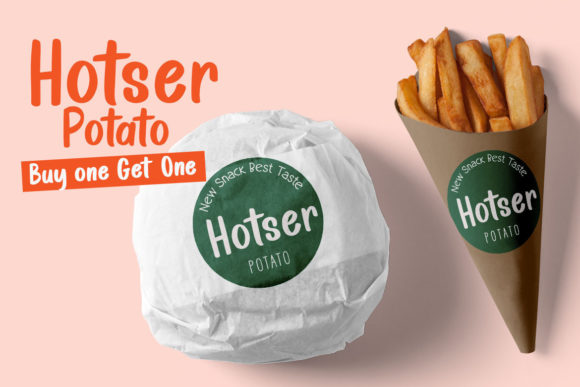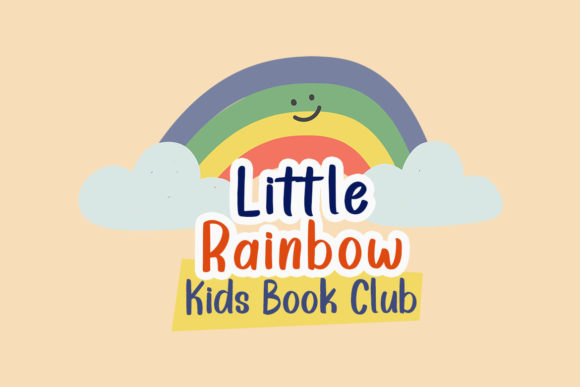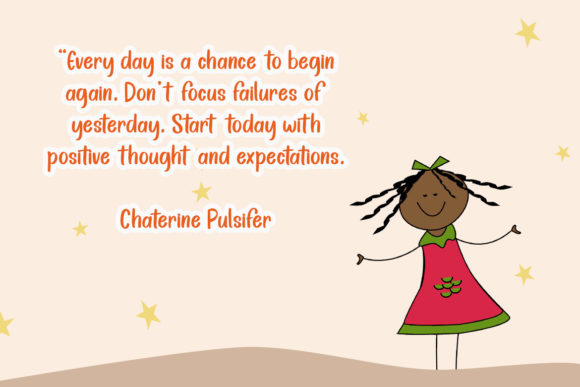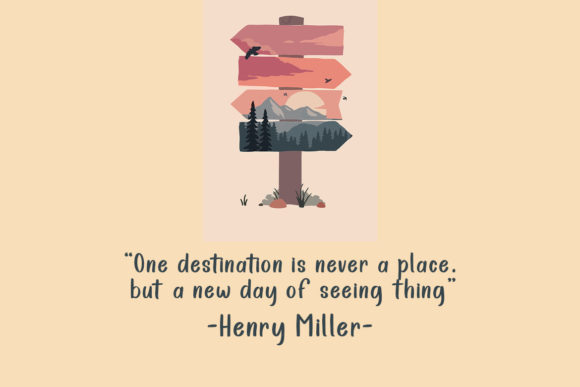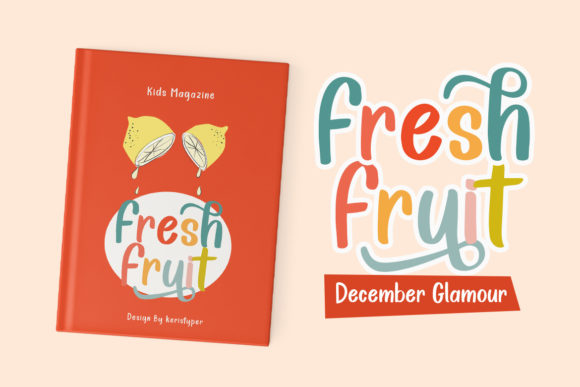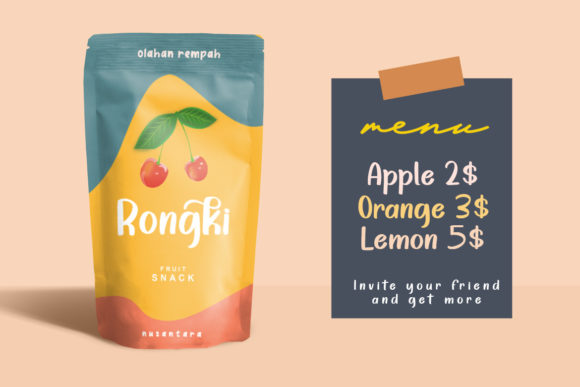
Gofinda Font: The Ultimate Choice for Designers and Crafters
Are you tired of using the same old fonts for your designs? Look no further than Gofinda Font, a cool, clean, and adaptable display font that’s perfect for adding a touch of adventure and positivity to your work. In this article, we’ll dive into the features and benefits of Gofinda Font, and explore how it can elevate your designs to the next level.
What is Gofinda Font?
Gofinda Font is a modern display font that’s designed to make a statement. With its clean lines, simple shapes, and bold character, Gofinda Font is the perfect choice for designers and crafters who want to add a touch of sophistication and style to their work. Whether you’re creating posters, labels, branding materials, or logos, Gofinda Font is the ultimate choice for anyone looking to make a lasting impression.
Key Features of Gofinda Font
- Cool and Clean Design: Gofinda Font features a sleek and modern design that’s perfect for creating visually appealing designs.
- Adaptable: Gofinda Font is highly versatile and can be used for a wide range of design projects, from posters and labels to branding and logos.
- Adventurous and Positive Vibe: Gofinda Font has a unique and energetic vibe that’s perfect for designers and crafters who want to convey a sense of adventure and positivity.
Benefits of Using Gofinda Font
So why choose Gofinda Font for your design projects? Here are just a few benefits of using this amazing font:
- Stand Out from the Crowd: With Gofinda Font, you can create designs that stand out from the crowd and grab attention.
- Perfect for Branding and Logos: Gofinda Font is ideal for creating memorable branding and logos that reflect your brand’s personality and values.
- Easily Readable: Despite its bold and adventurous vibe, Gofinda Font is highly readable, even at small sizes.
- Customizable: Gofinda Font can be easily customized to fit your design needs, from adjusting the font size and color to adding effects and textures.
Who Can Benefit from Gofinda Font?
Gofinda Font is perfect for a wide range of designers and crafters, including:
- Graphic Designers: Gofinda Font is ideal for graphic designers who want to create visually appealing designs for their clients.
- Logos and Branding Experts: Gofinda Font is perfect for designers who specialize in creating logos and branding materials.
- Crafters and Makers: Gofinda Font is great for crafters and makers who want to add a personal touch to their products and packaging.
- Marketing and Advertising Professionals: Gofinda Font can be used by marketing and advertising professionals to create eye-catching campaigns and ads.
How to Use Gofinda Font
Using Gofinda Font is easy! Here are a few tips to get you started:
- Pair with Other Fonts: Gofinda Font pairs well with other fonts, so feel free to experiment with different combinations to find the perfect look for your design.
- Adjust Font Size and Color: Adjust the font size and color to fit your design needs and create visual interest.
- Add Effects and Textures: Add effects and textures to Gofinda Font to give it a unique and personalized look.
| Author | Keristyper |
In conclusion, Gofinda Font is a cool, clean, and adaptable display font that’s perfect for designers and crafters who want to add a touch of adventure and positivity to their work. With its unique features, benefits, and versatility, Gofinda Font is the ultimate choice for anyone looking to create visually appealing designs that stand out from the crowd. So why wait? Try Gofinda Font today and take your designs to the next level!